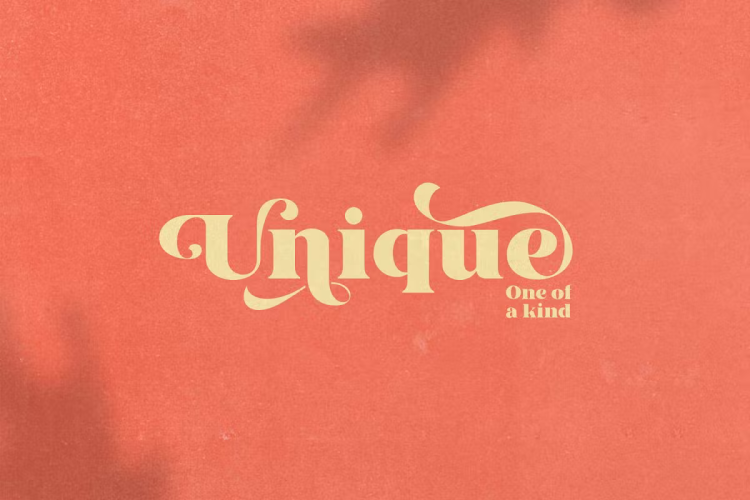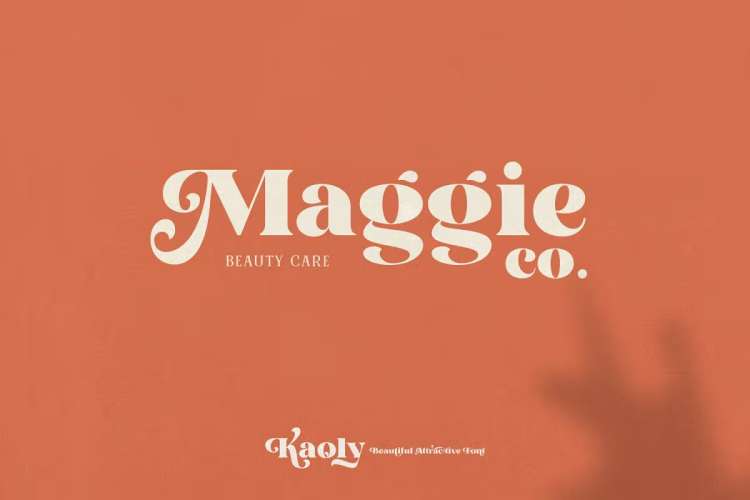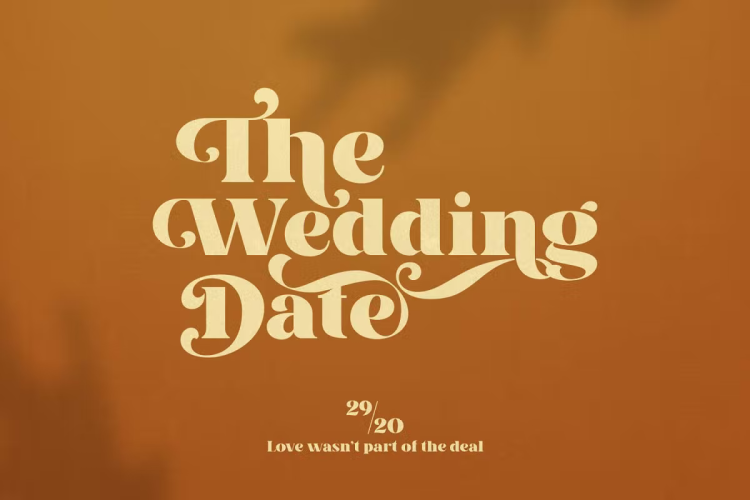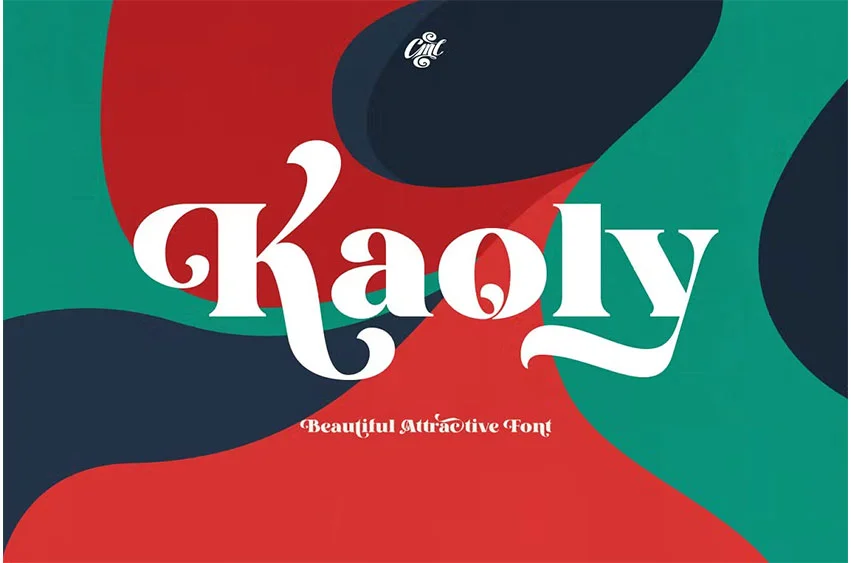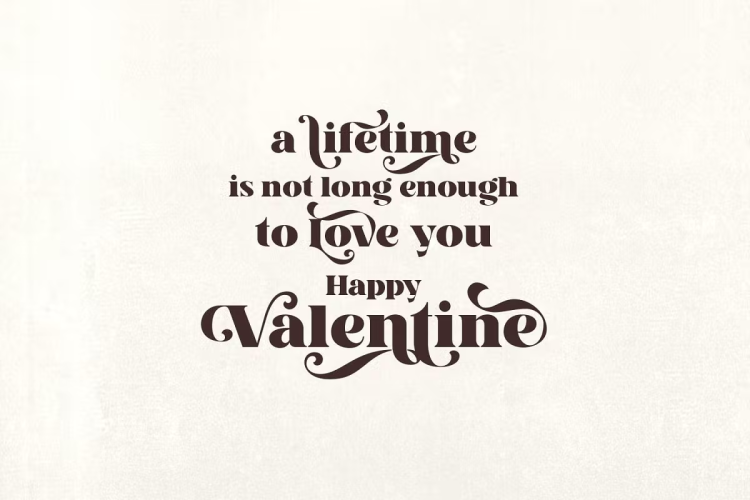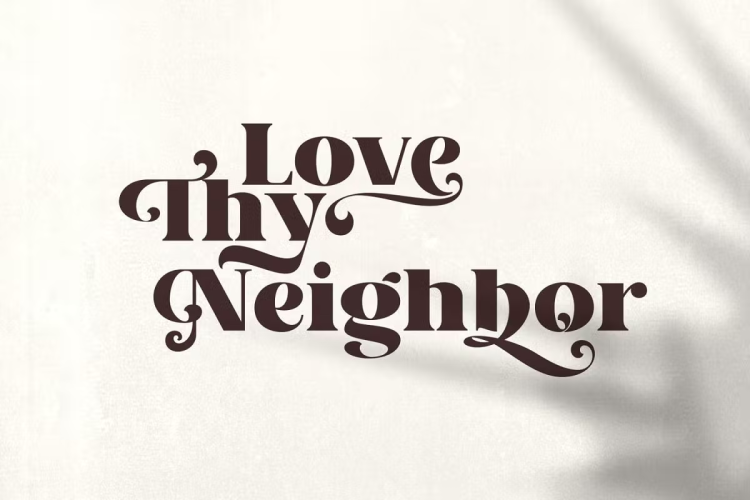
Kaoly Font Unique bold serif with a lot of unique and beautiful alternate characters that you can combine to get beautiful final lettering with nice and dynamic shapes j…
Kaoly Font Unique bold serif with a lot of unique and beautiful alternate characters that you can combine to get beautiful final lettering with nice and dynamic shapes just in seconds! Thanks for the unique alternates!
This is the lite version for this style, changes only on uppercase, we also removed the alternative letters to reduce the file size, it will load much faster your website when you’re using this font for the website heading text, products title or using applications that do not support OpenType features, it’s very easy to make beautiful words just by typing and tada.. you’re done.
Kaoly will make your work easy and fun.
Kaoly Font gives long-form text a classic, trustworthy rhythm — ideal for magazine spreads, annual reports and book interiors.
Pair Kaoly Font with generous letter-spacing for wordmarks in fashion, hospitality, wine and jewellery branding.